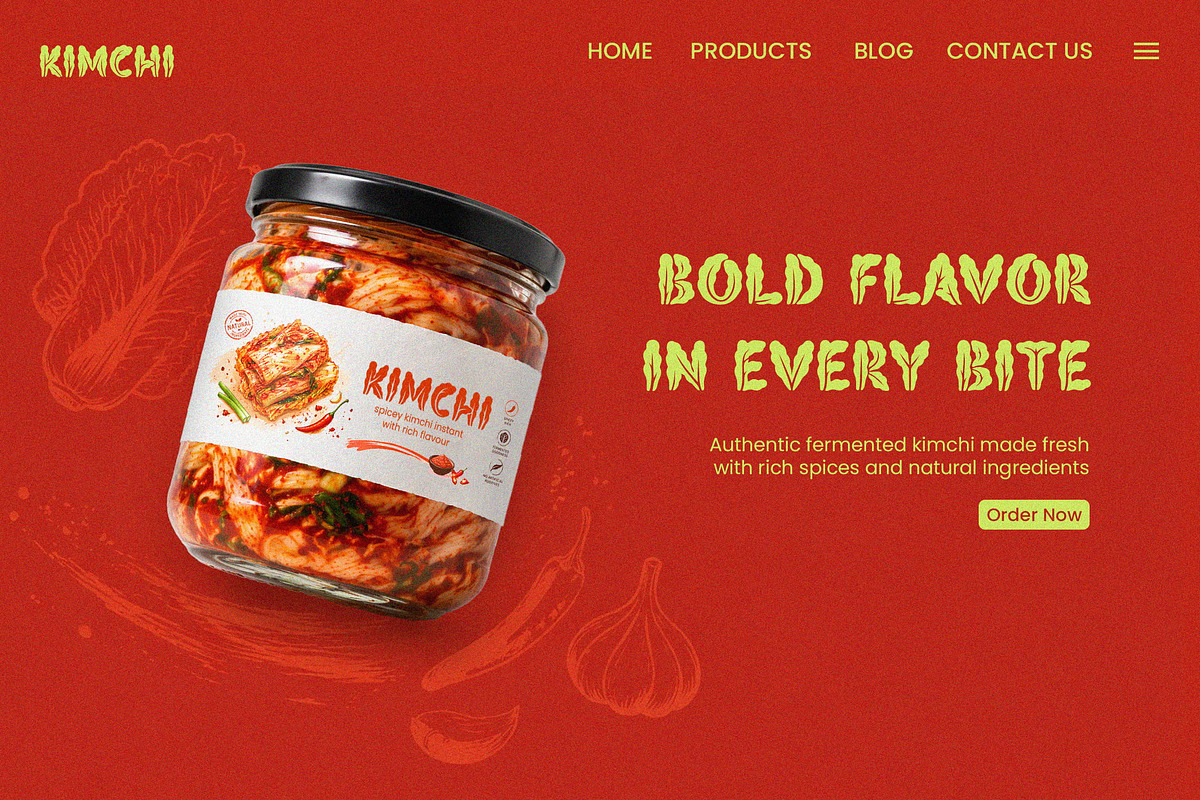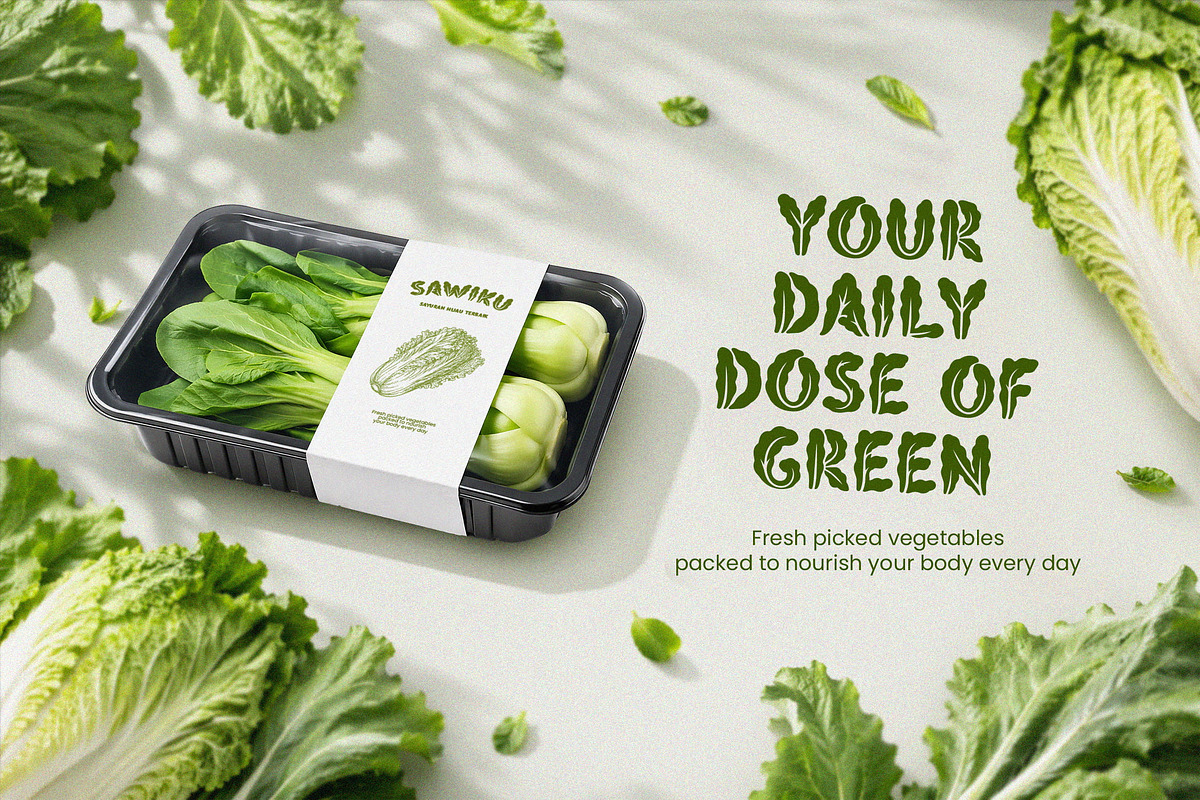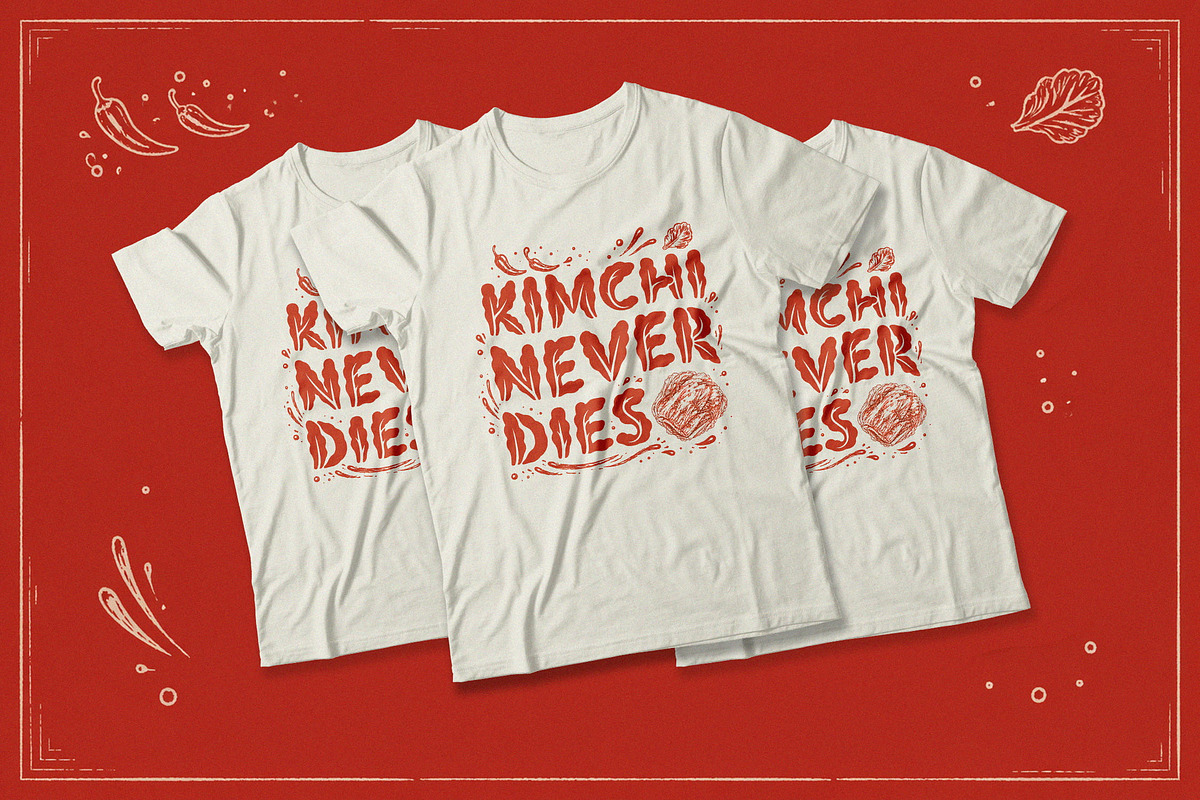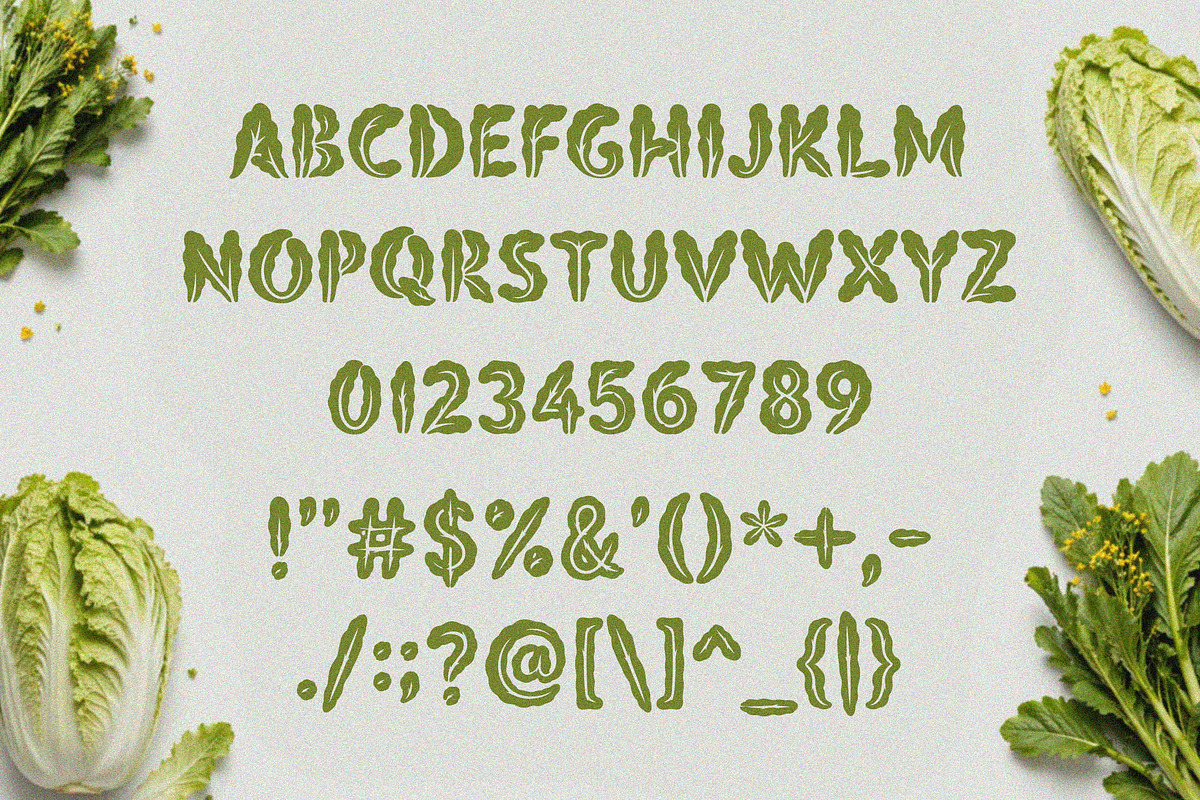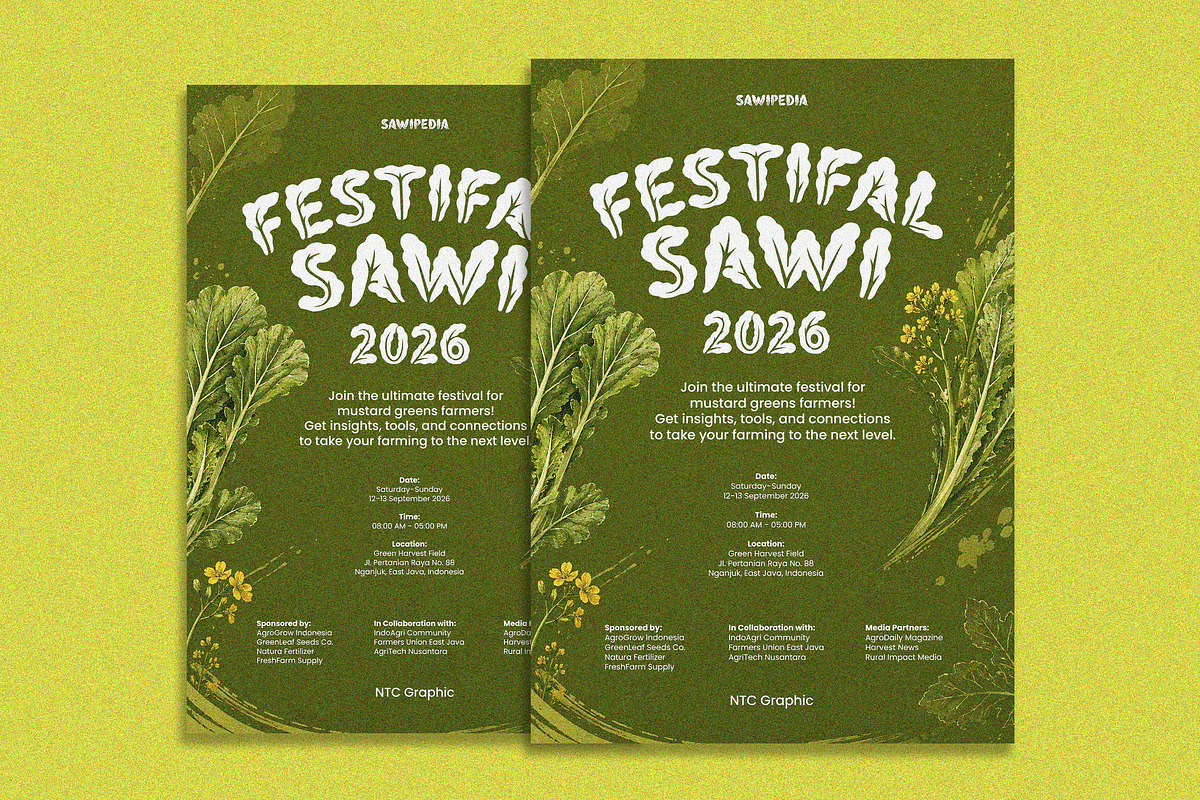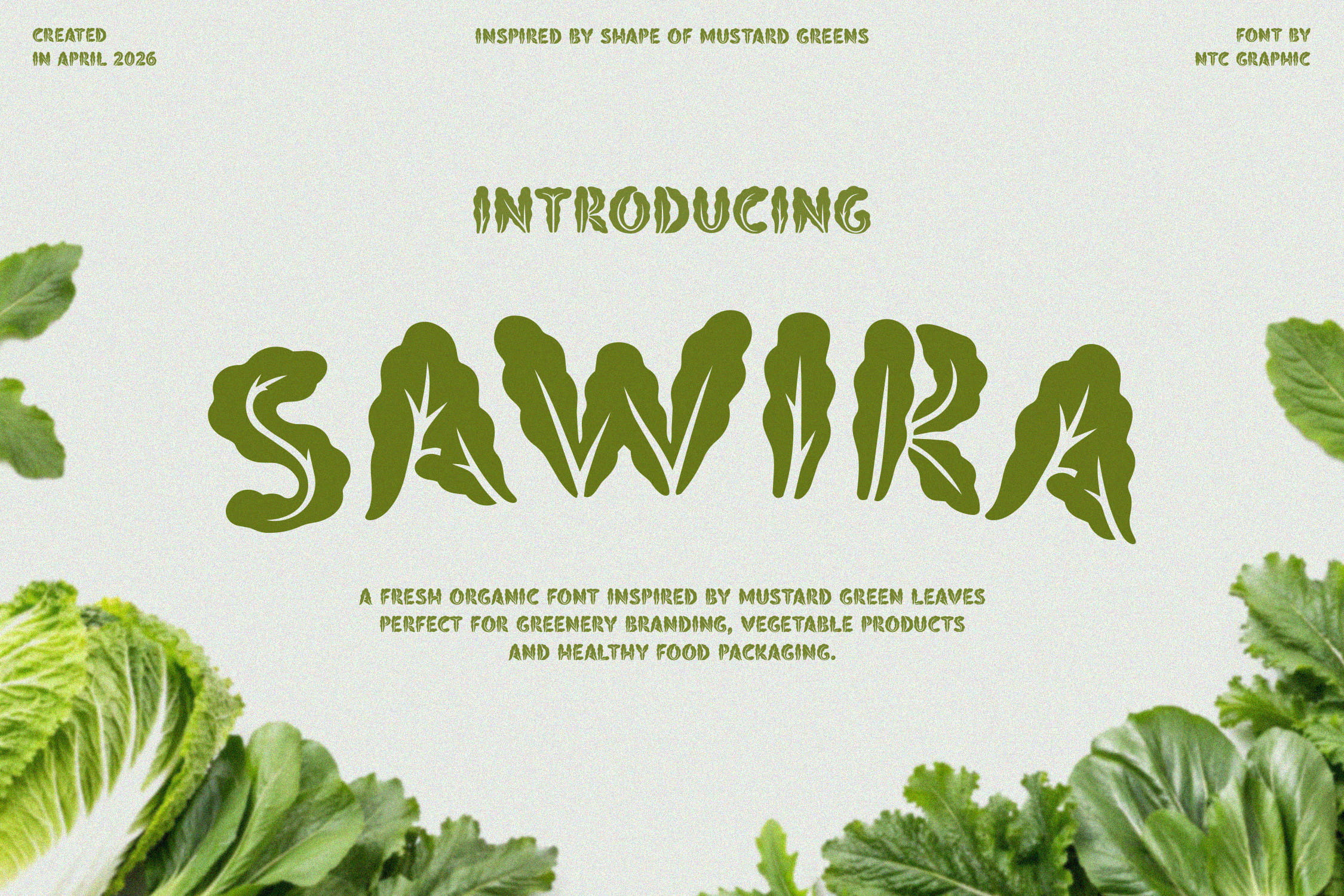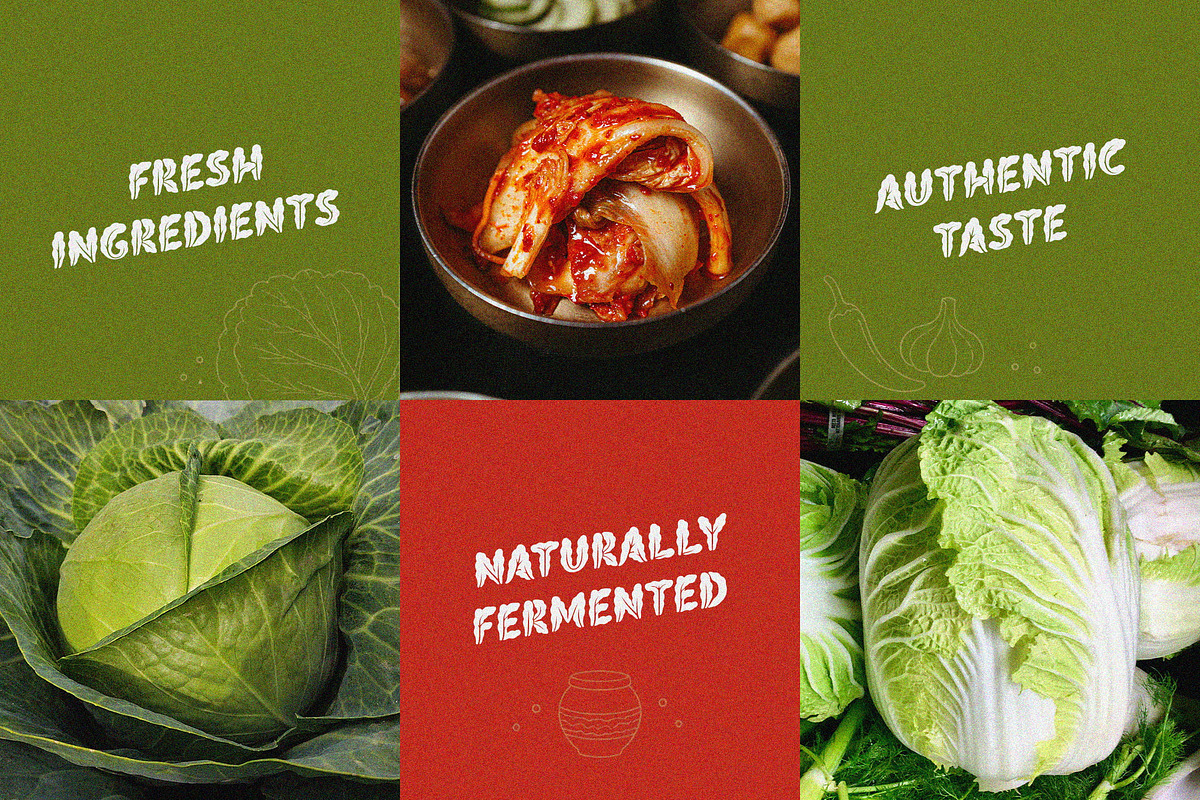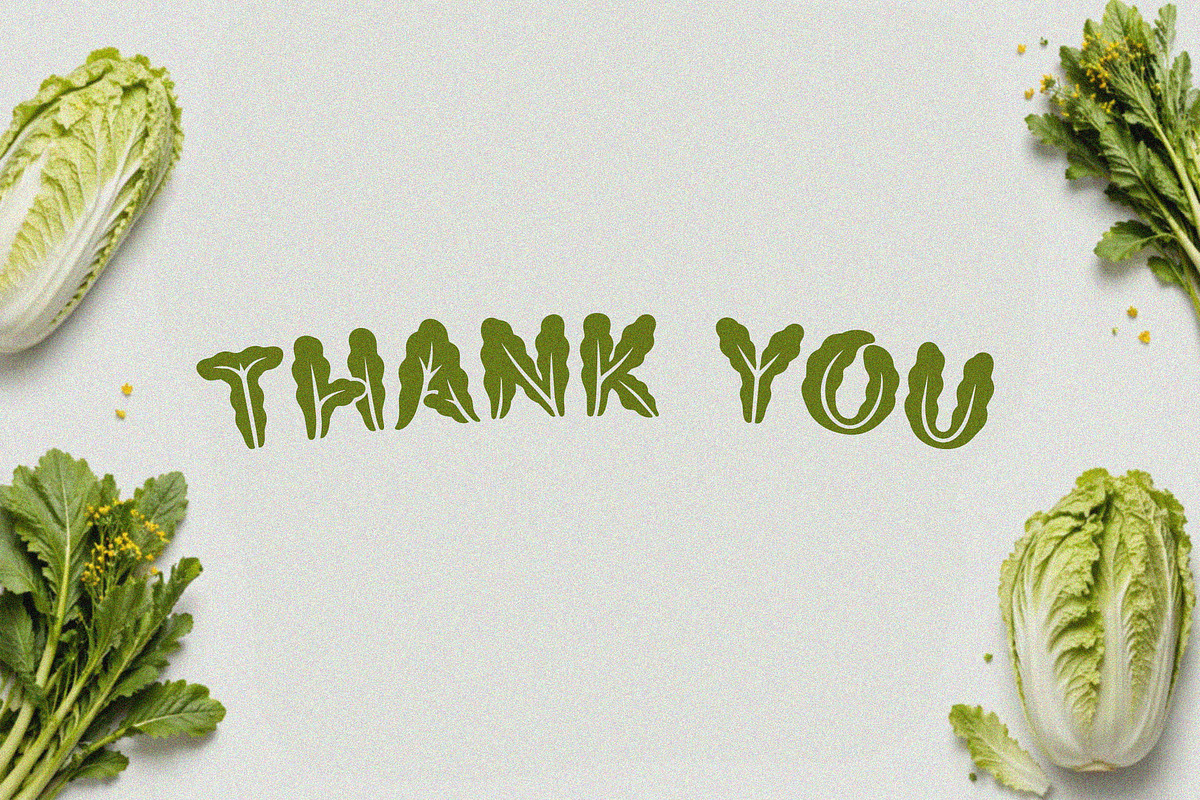
Sawira – Organic Display Font
Sawira – Organic Mustard Greens Display Font
Sawira is a unique organic display font inspired by the natural shapes of mustard green leaves. Featuring bold, irregular, and leafy letterforms, this font brings a fresh, natural, and handcrafted feel to your designs.
Designed to capture the essence of greenery and organic living, Sawira is perfect for projects that need a strong natural identity and eye-catching typography.
Ideal for branding, logo design, packaging, vegetable products, organic food brands, healthy lifestyle products, posters, and merchandise design.
- Uppercase A–Z
- Numbers (0–9)
- Essential punctuation
- Organic leaf-inspired letterforms
- Unique and expressive display style
- Bold and eye-catching shapes
- Perfect for eco, food, and natural branding
- Organic & eco-friendly brands
- Food & beverage packaging
- Vegetable product branding
- Posters & promotional materials
- Merchandise & apparel design